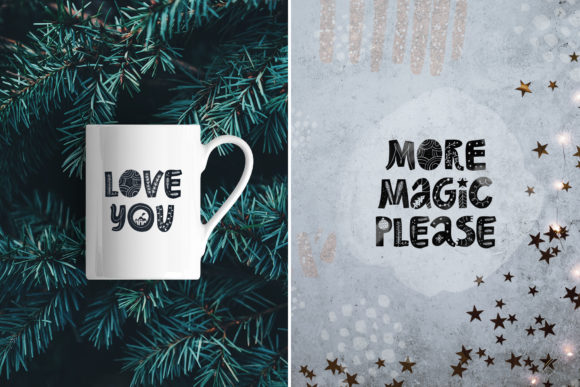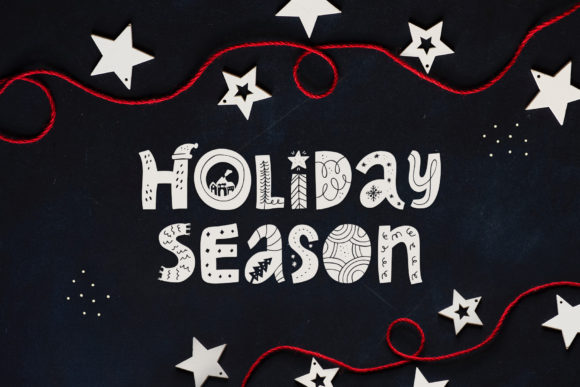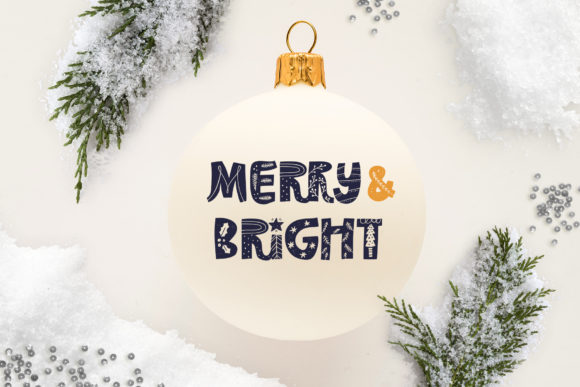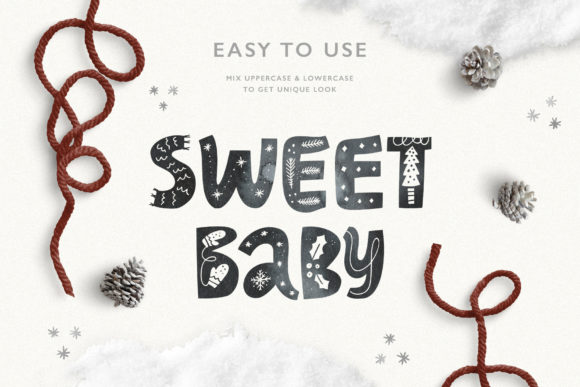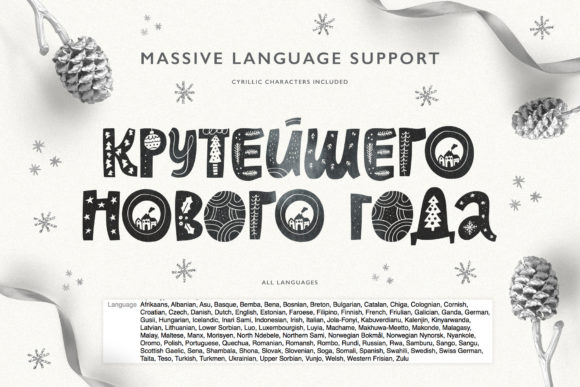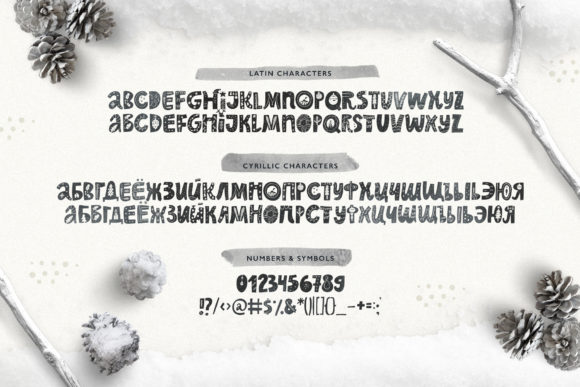
Introduction to Nordic Christmas Font
Nordic Christmas is a stylish decorative font with a bold look and holiday feel.
It is inspired by nature, winter, and scandinavian motives, and it will be perfect for posters and greeting cards .